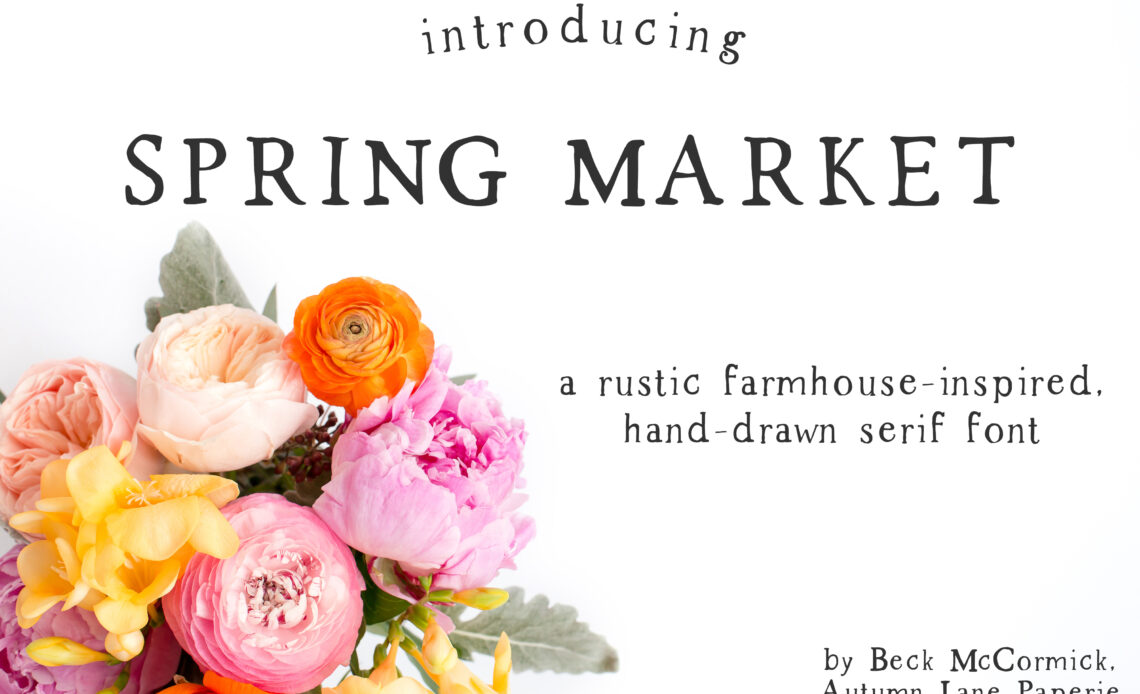
Introducing Spring Market Font, a captivating and rustic serif font designed to add a touch of farmhouse-style charm to your projects. Created by the talented BeckMcCormick, this font is a true labor of love, meticulously hand-drawn on an iPad to ensure every detail is perfect.
With its timeless appeal, Spring Market Font is a versatile choice that will elevate your designs to new heights. Whether you're creating a logo for your business, designing invitations for a special event, or working on any other creative project, this font is sure to make a lasting impression.
One of the standout features of Spring Market Font is its ability to effortlessly blend into various design themes. Its rustic aesthetic adds a warm and cozy vibe, making it ideal for projects that embrace the farmhouse style. Imagine using this font for packaging labels, product tags, or even menu designs for a trendy café. The possibilities are endless!
In addition, Spring Market Font goes the extra mile by providing European language support. No matter where your audience is located, you can confidently communicate with them using this font. Whether you're designing for an international audience or simply want to add a touch of elegance to your text, this feature sets Spring Market Font apart from the rest.
But what truly sets Spring Market Font apart is the emotional connection it creates with its users. This font embodies the essence of simplicity, authenticity, and the beauty of imperfections. It evokes a sense of nostalgia, transporting you to a charming countryside market where handwritten signs and personal touch reign supreme.
By choosing Spring Market Font, you're not just acquiring a font – you're embracing a story. A story that speaks of craftsmanship, dedication, and the pursuit of artistic expression. It's the perfect tool to infuse your projects with personality and meaning, capturing the hearts of your audience and making your message truly resonate.
In conclusion, Spring Market Font is more than just a serif font – it's an experience. Its rustic, farmhouse-style allure, coupled with its versatility and functionality, make it a must-have for any designer or creative individual. Step into a world of timeless charm and download Spring Market Font today!